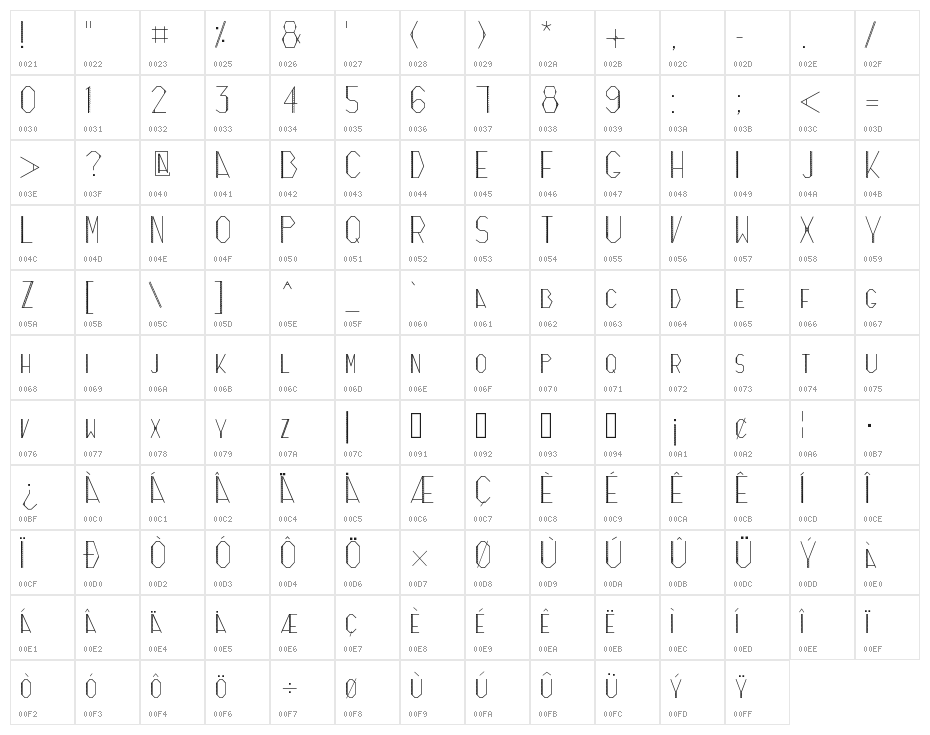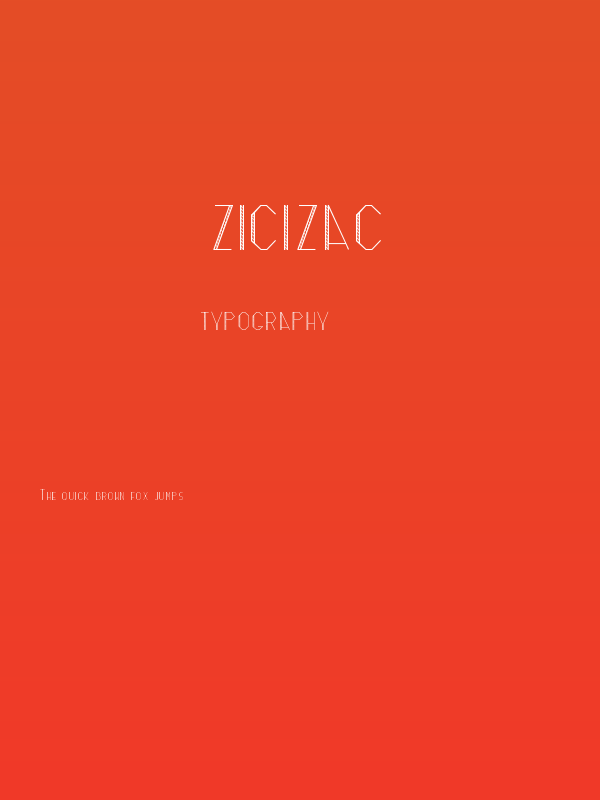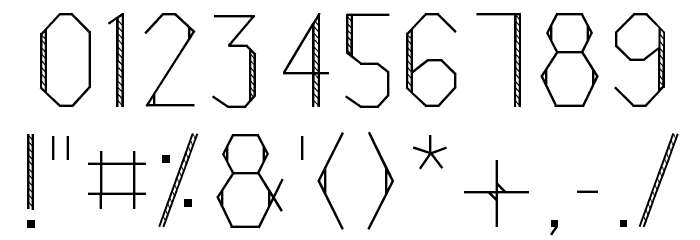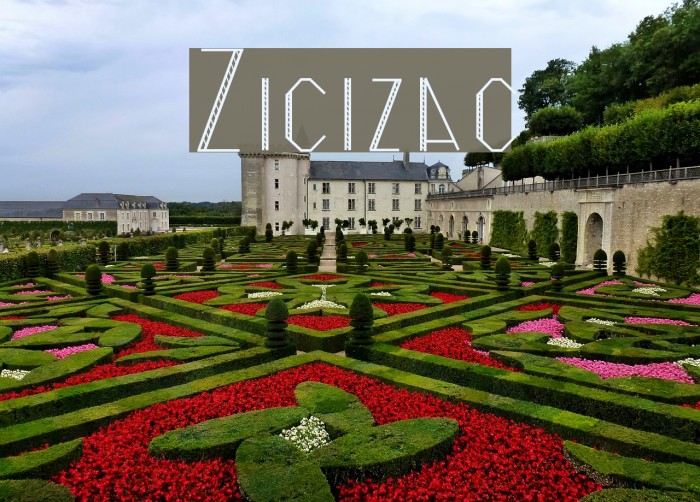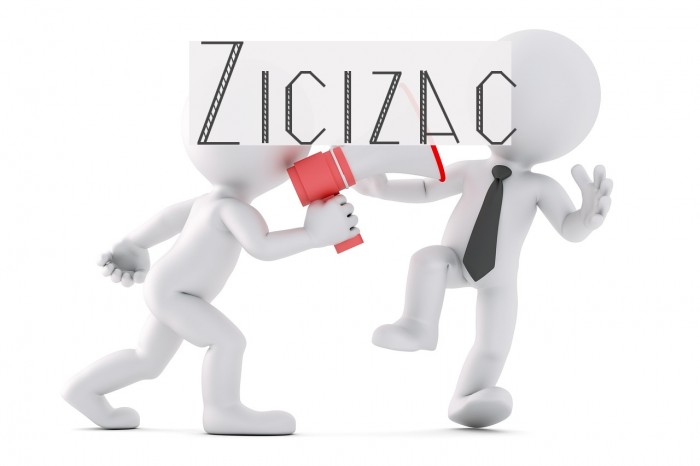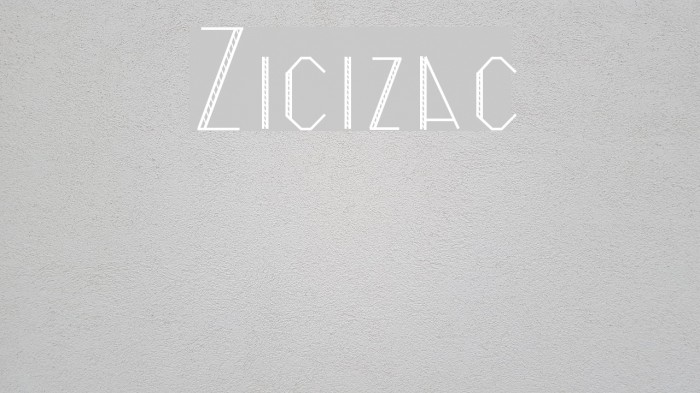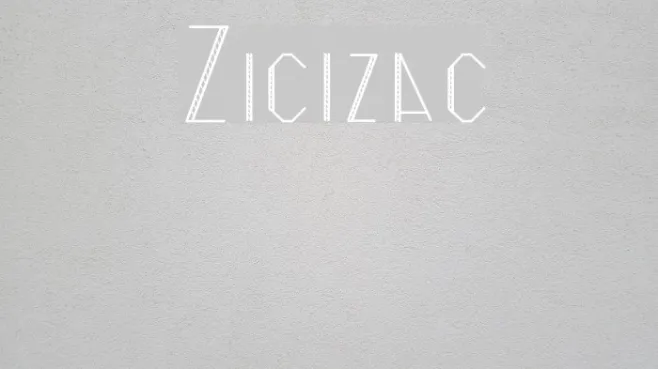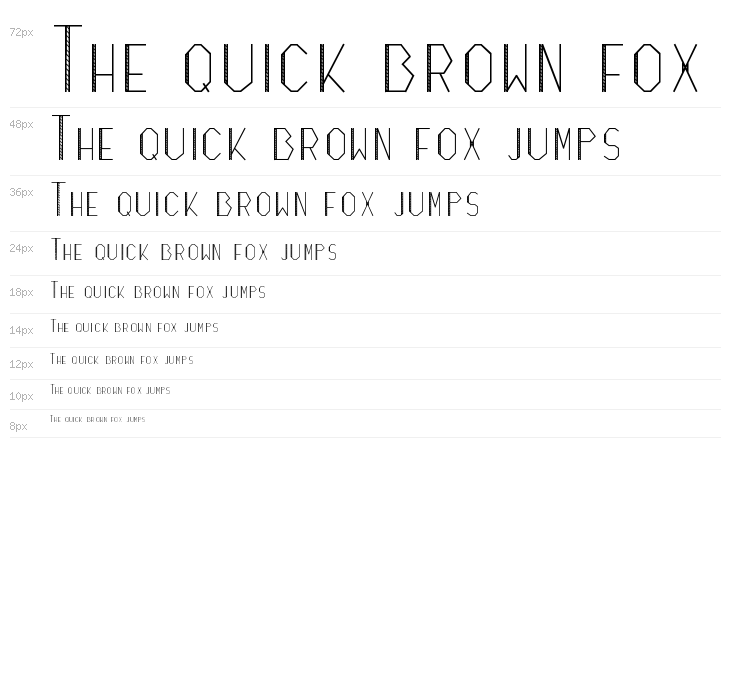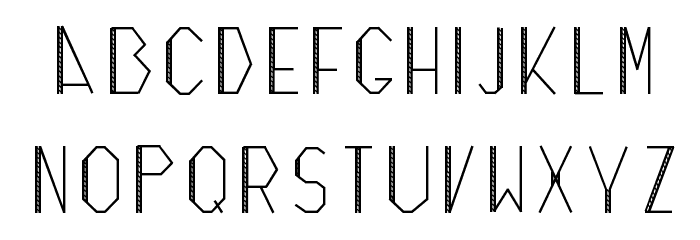
Zicizac Font
Zicizac Description
This font features a unique, geometric design with a distinct zigzag pattern running through each character. The uppercase and lowercase letters maintain a consistent angular style, creating a cohesive and modern appearance. The numbers and special characters follow the same design principles, ensuring uniformity across all glyphs. The font's structure is clean and sharp, making it suitable for projects that require a contemporary and edgy look. Its distinctive style is both eye-catching and versatile, allowing it to be used in a variety of creative applications.
| Proposed Projects | Ideal for branding, posters, modern art projects, and digital media that require a bold statement. |